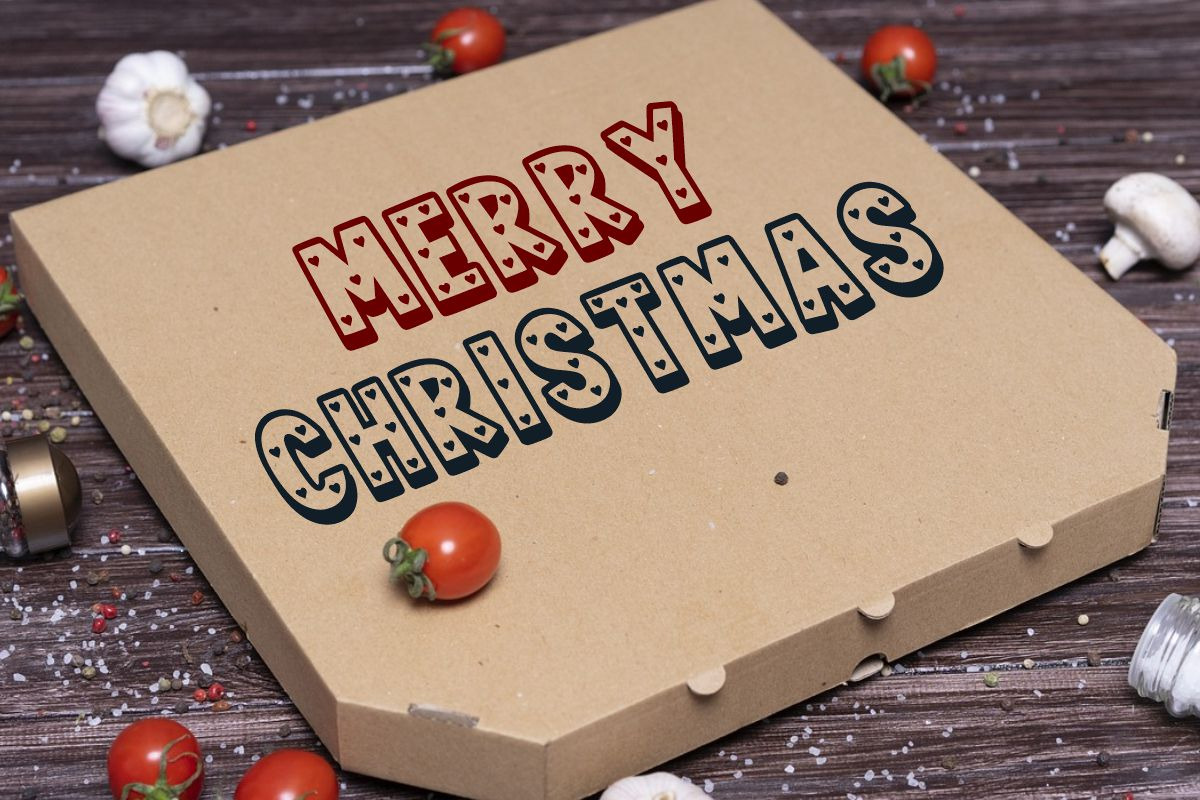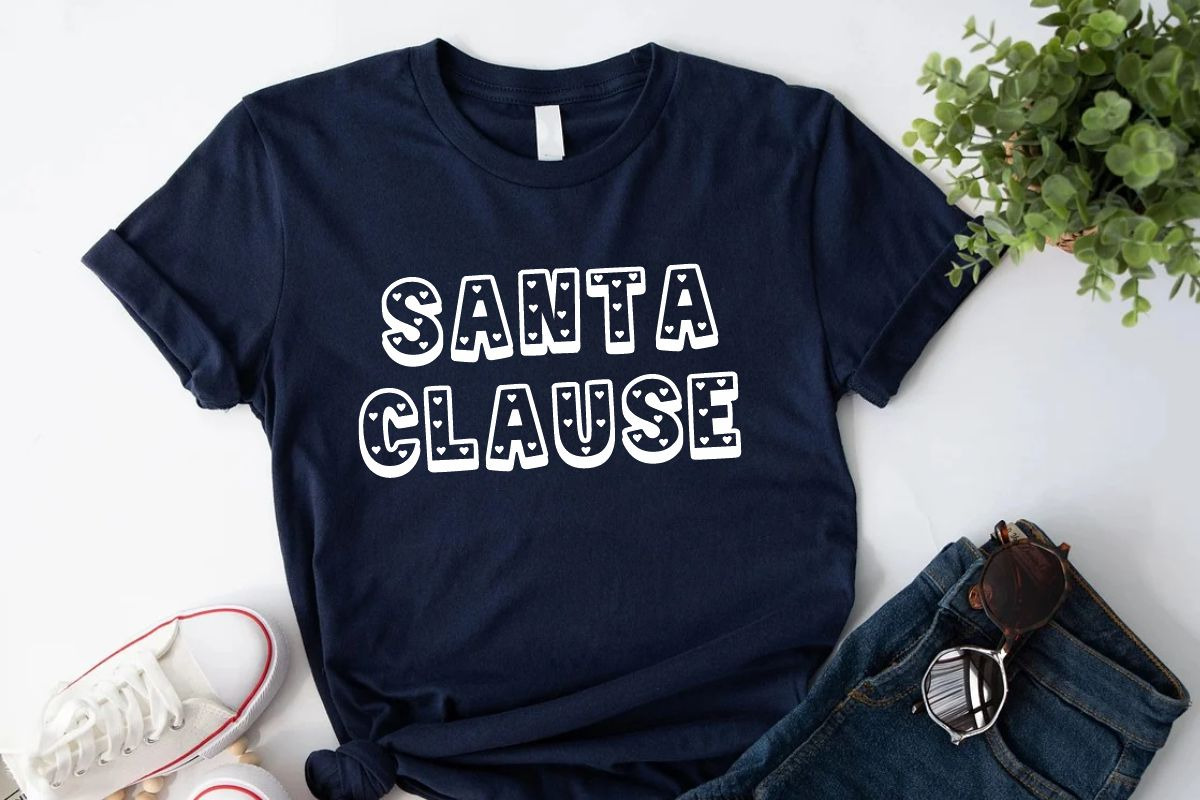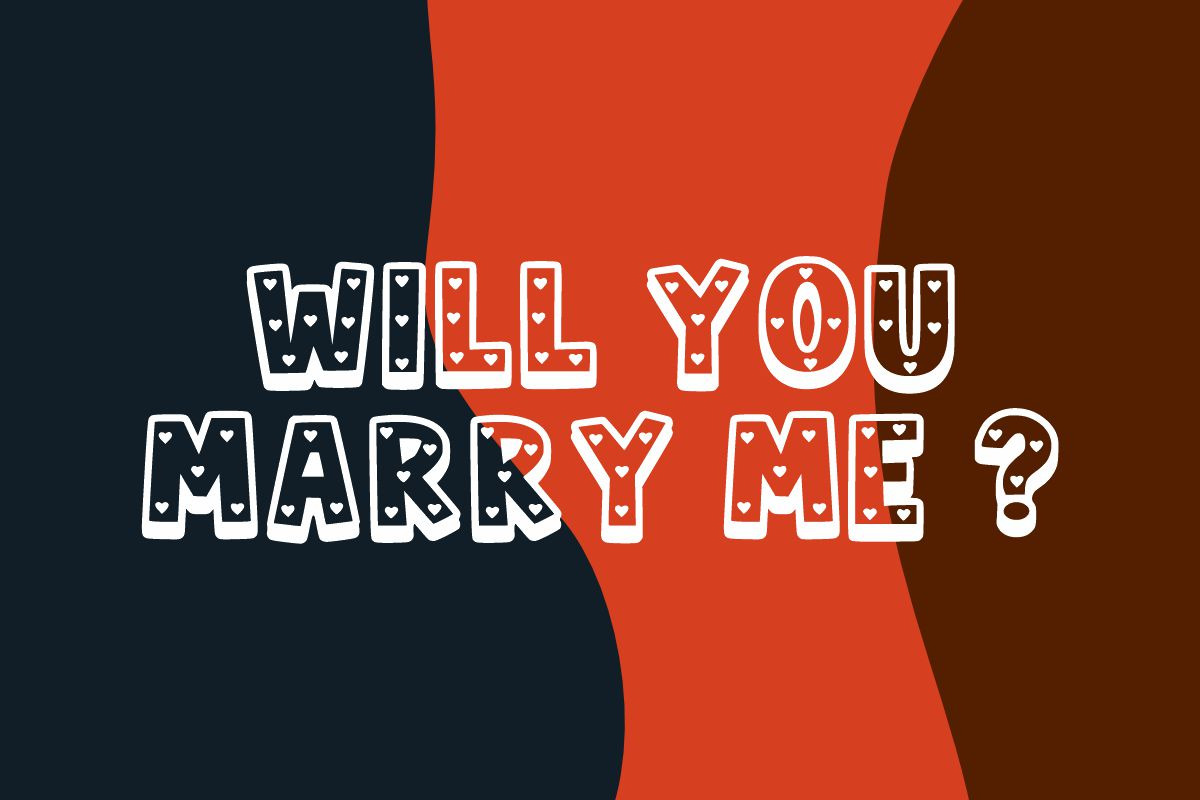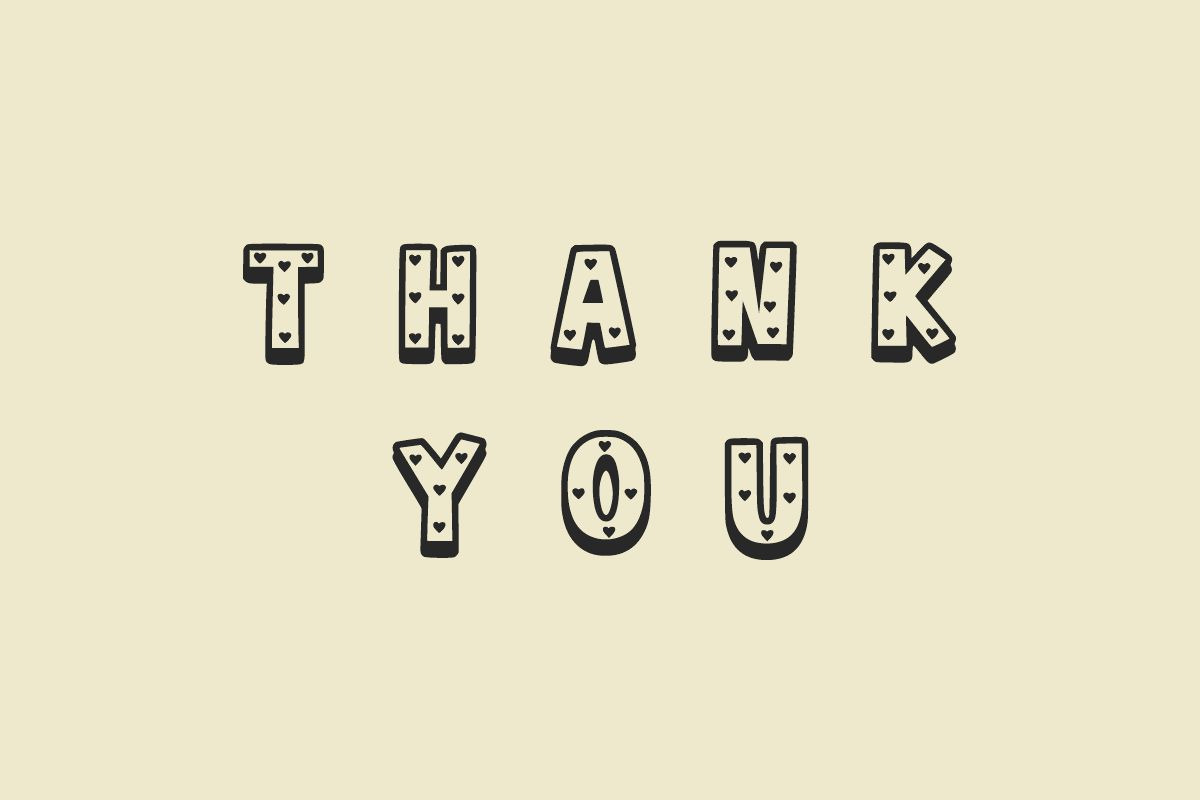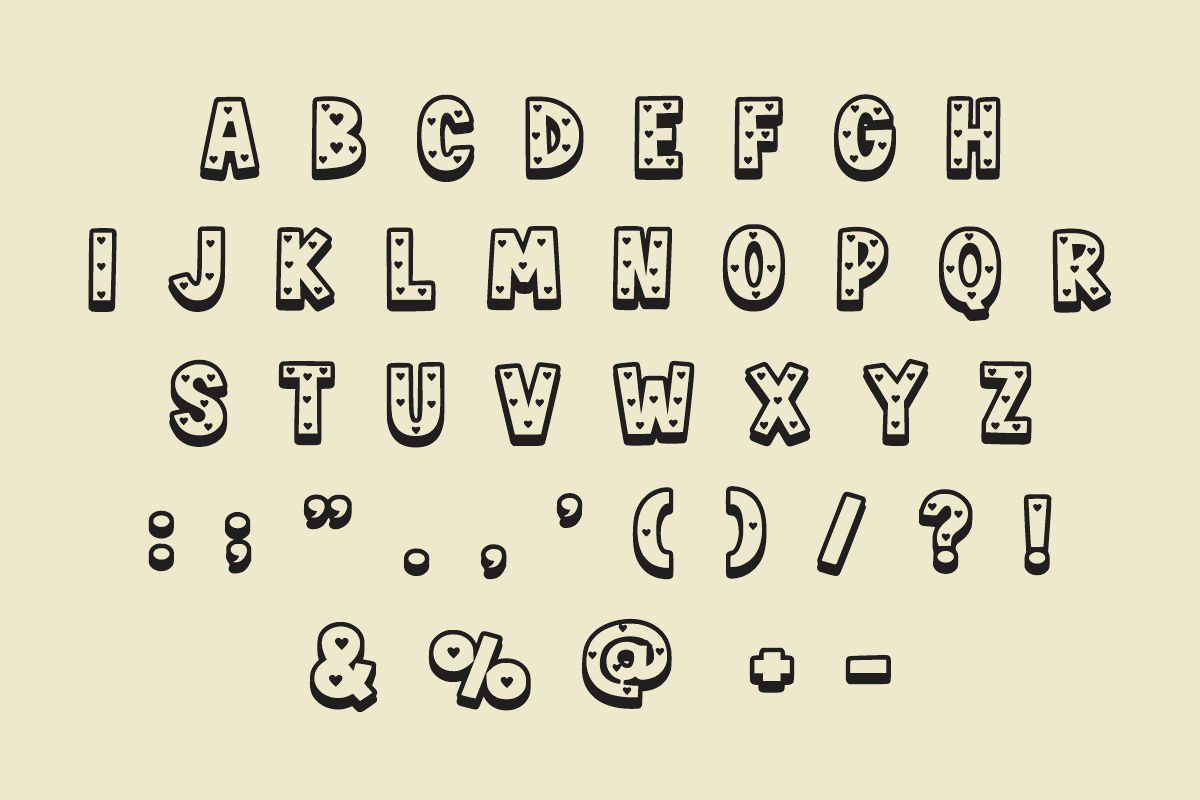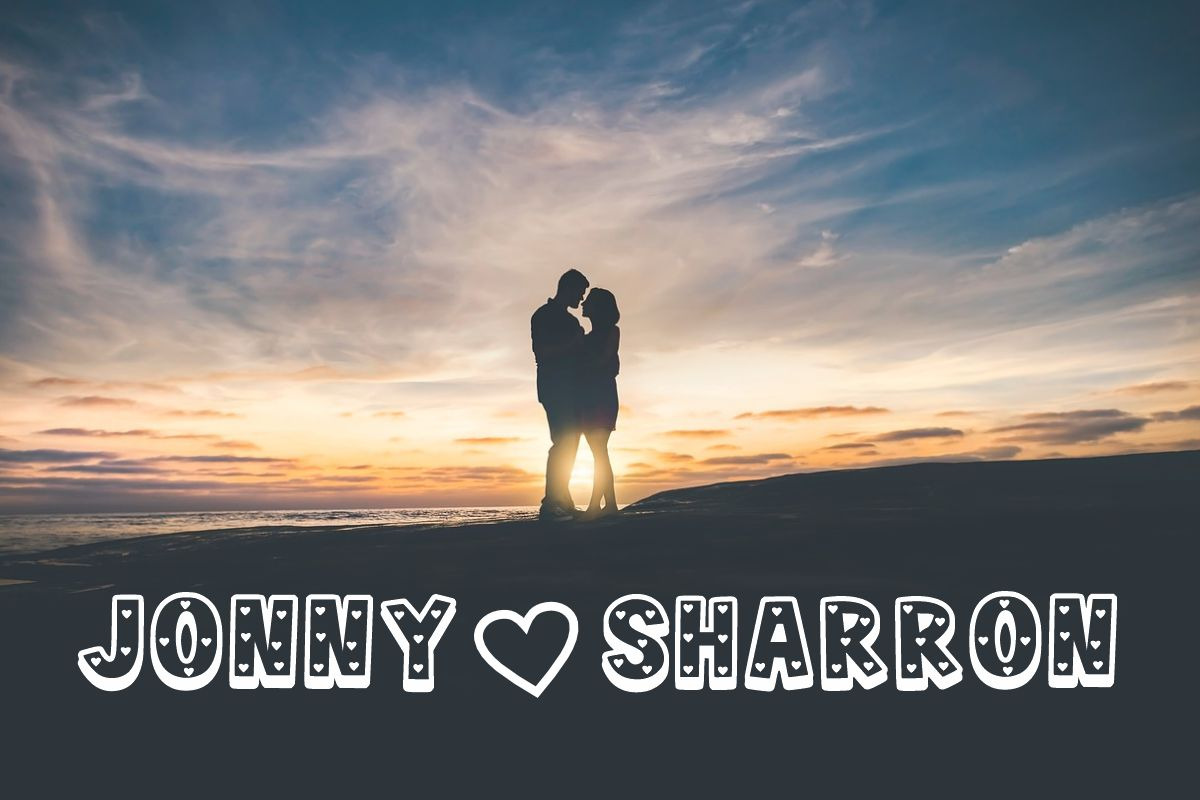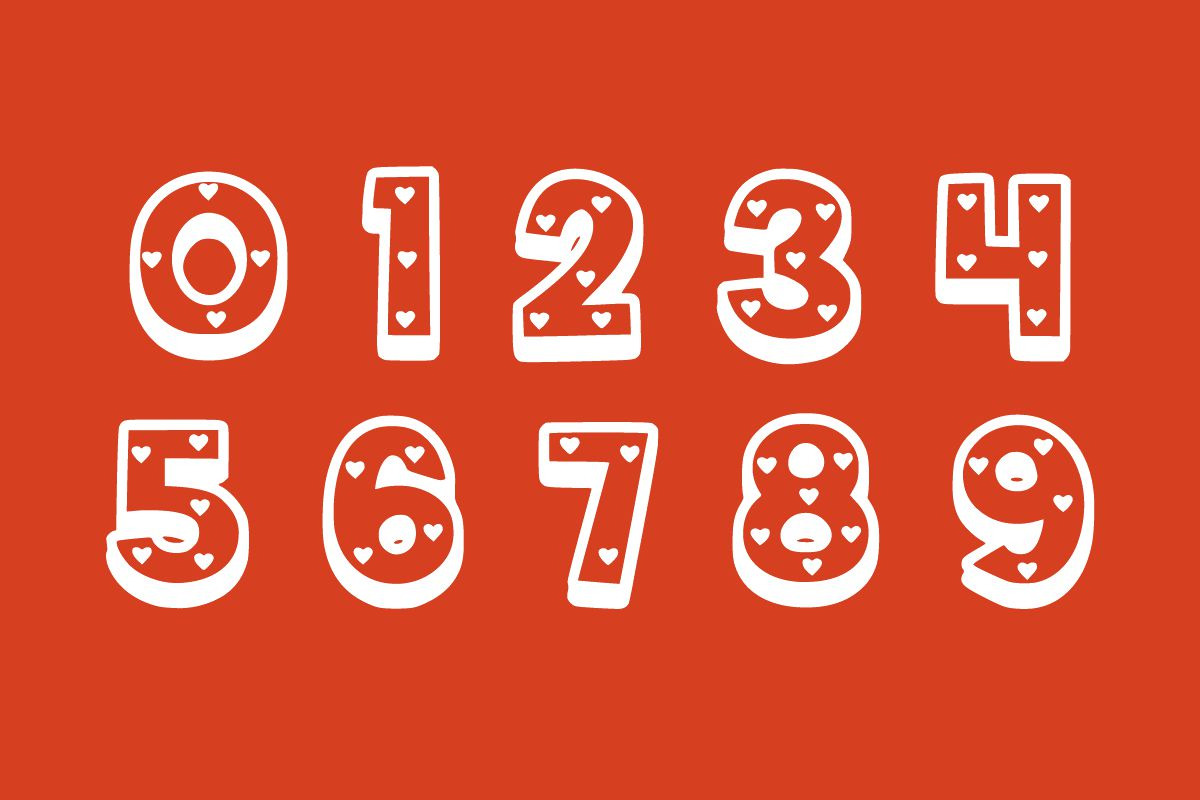
Love Forever
Love Forever was inspired by playful, love, bouncy romantic typography. This font is perfect for a design that makes it more attractive and chic.